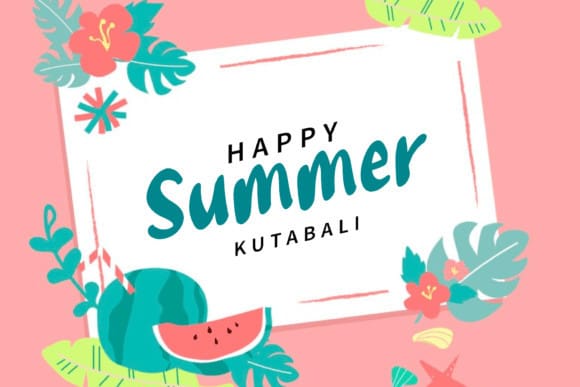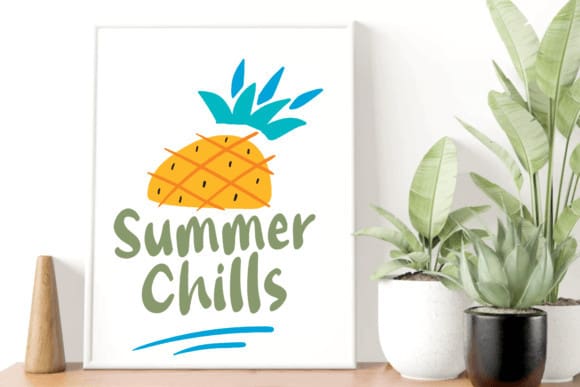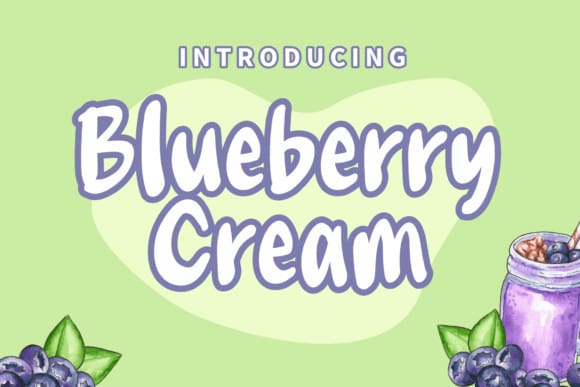
Blueberry Cream Font
Blueberry Cream Font is a fun and friendly handwritten font. Whether you’re using it for crafts, digital design, presentations, or making greeting cards, this font has the potential to become your favorite go-to font, no matter the occasion!